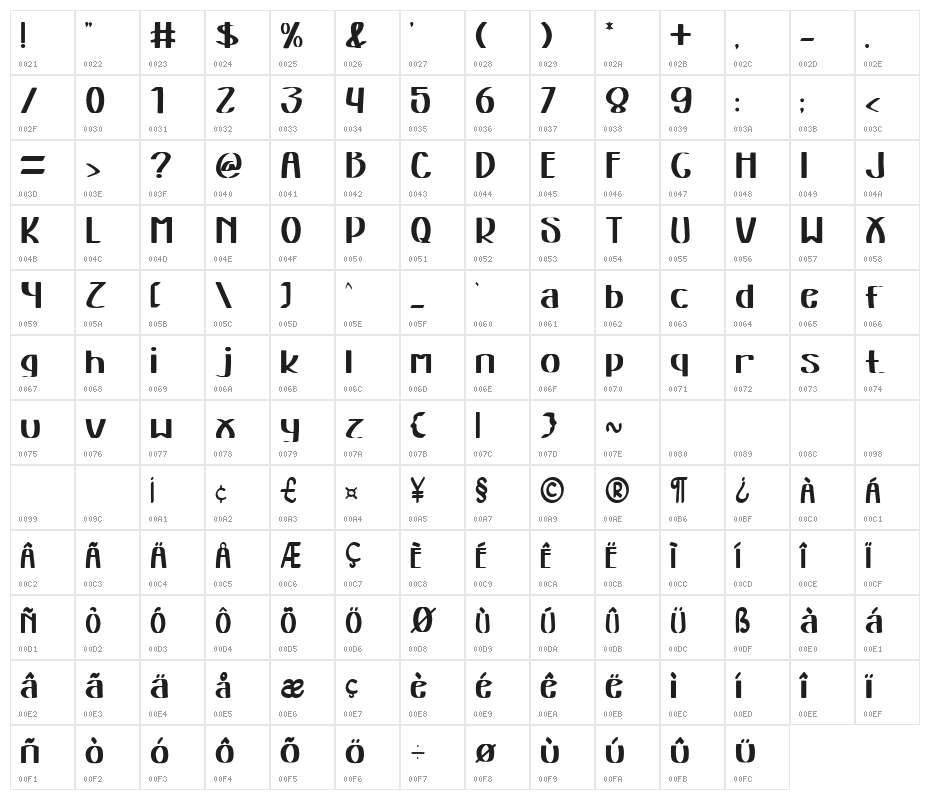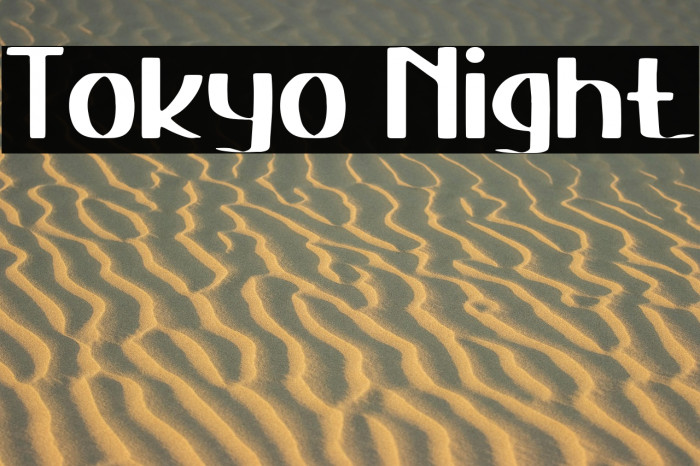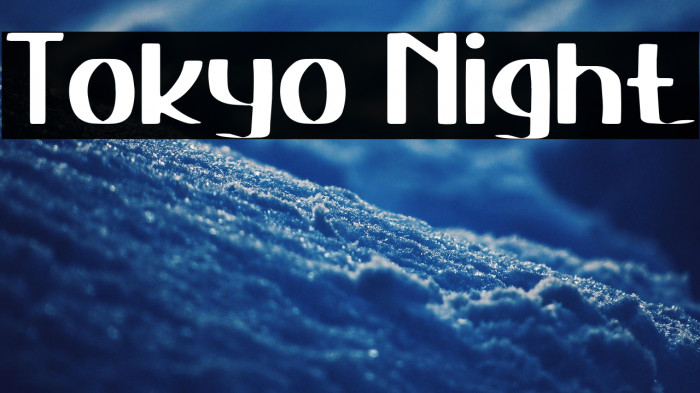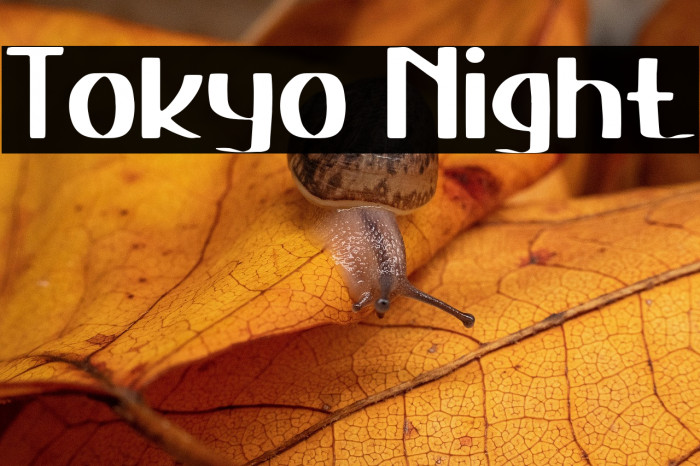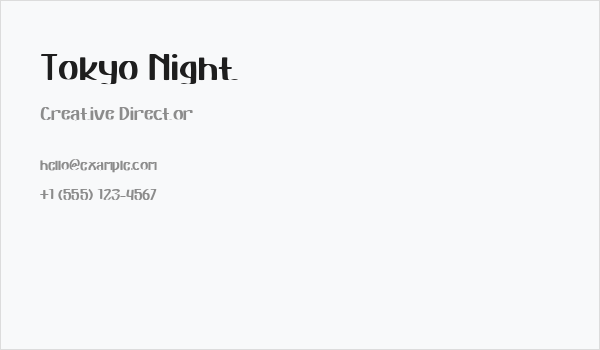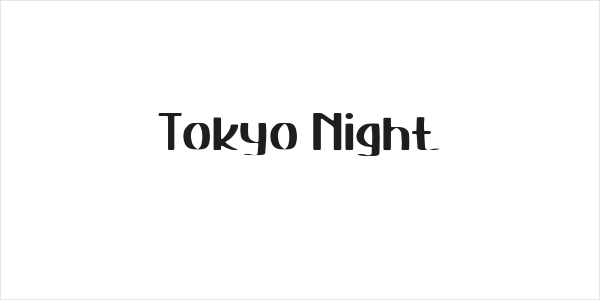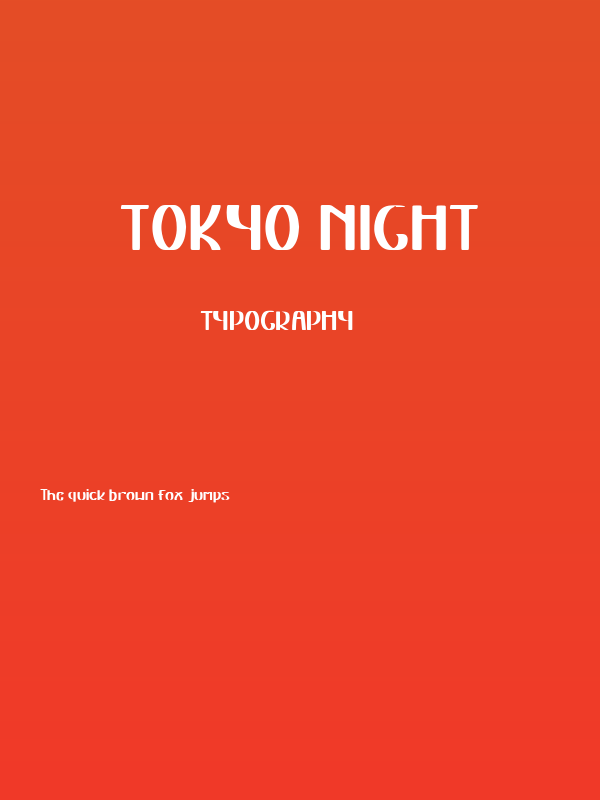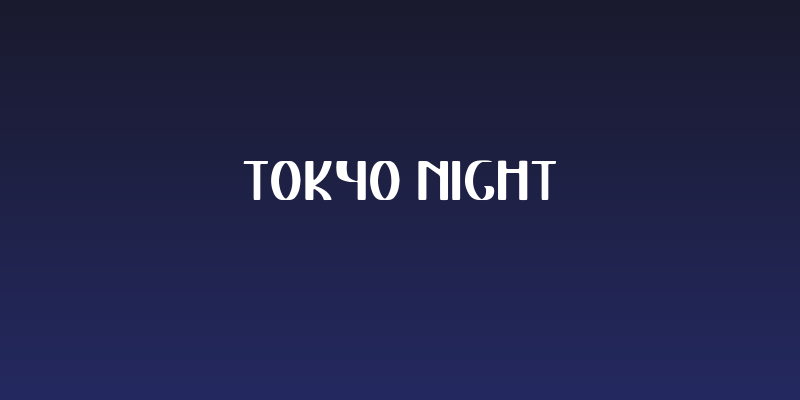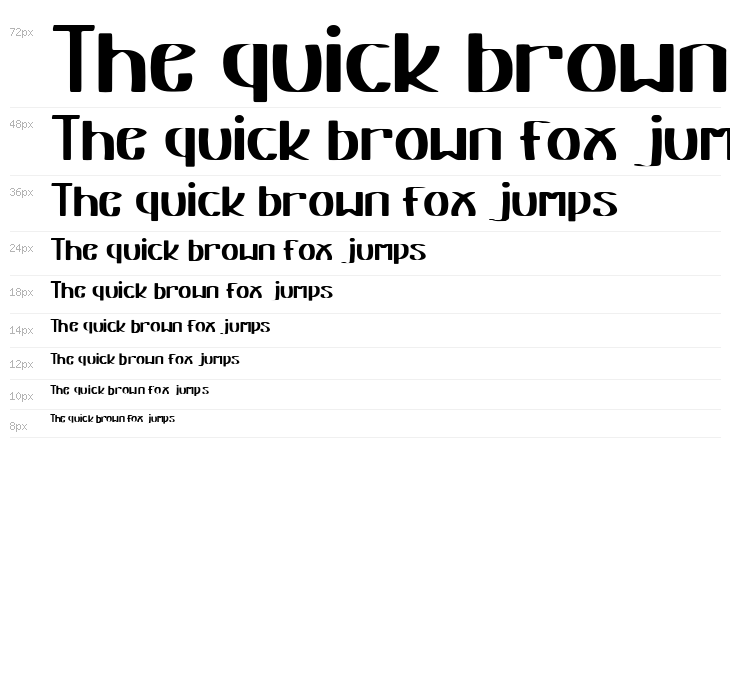
Tokyo Night Font
Tokyo Night Description
This font features a bold and dynamic style with a modern flair. The characters are crafted with a unique blend of sharp edges and smooth curves, creating a striking visual impact. The uppercase letters are particularly bold, with a strong presence that commands attention. The lowercase letters maintain a consistent style, offering a harmonious balance between the two cases. Numbers and special characters are designed to match the overall aesthetic, ensuring versatility across various applications. The font's distinctive look makes it suitable for creative projects that require a contemporary and eye-catching typeface.